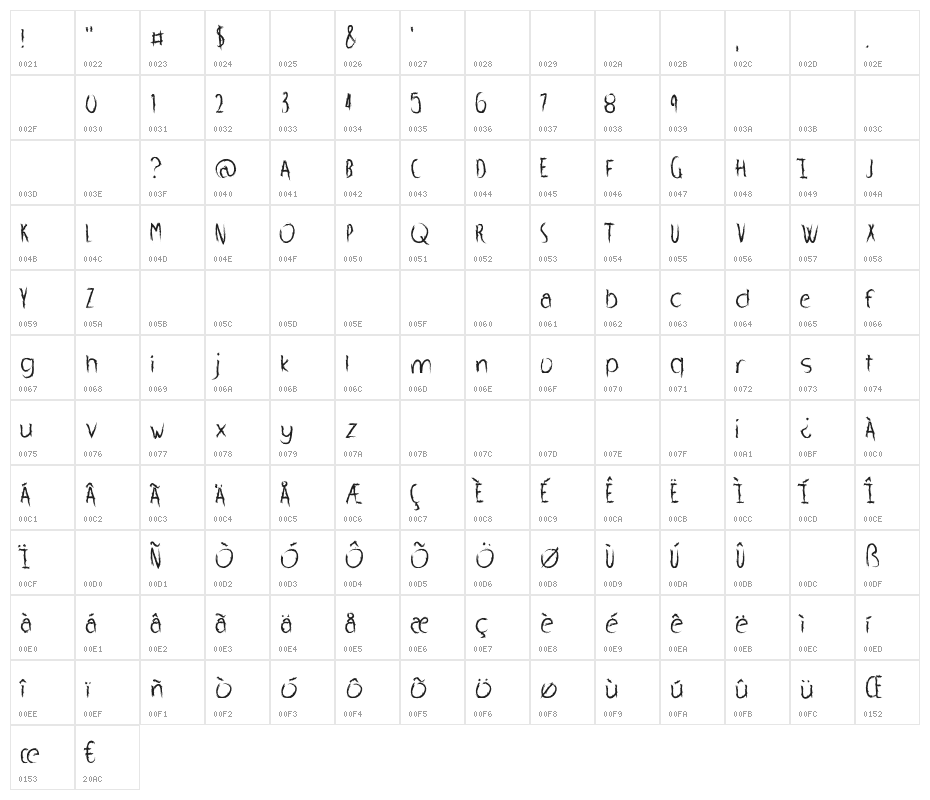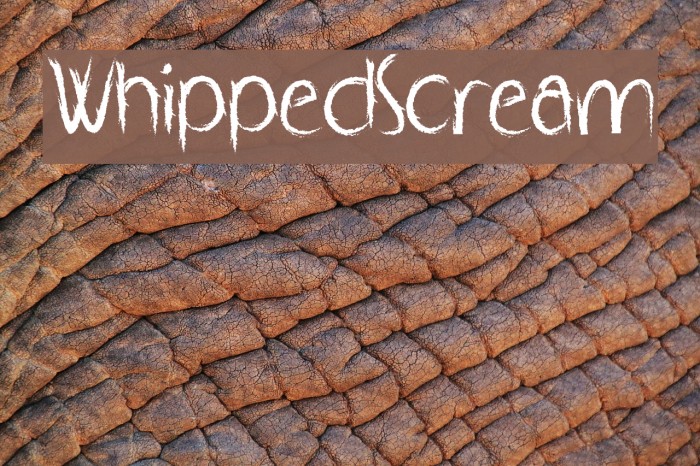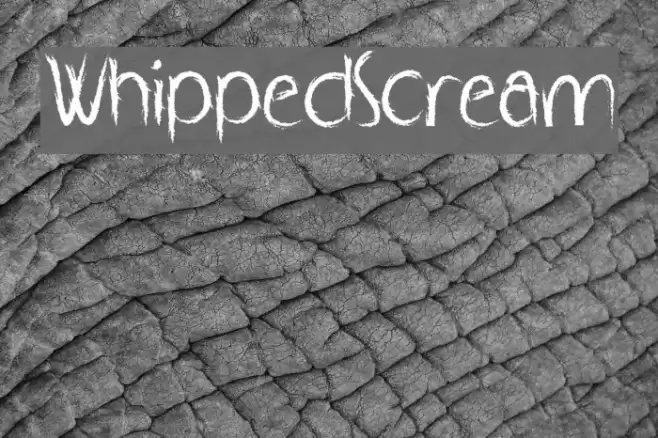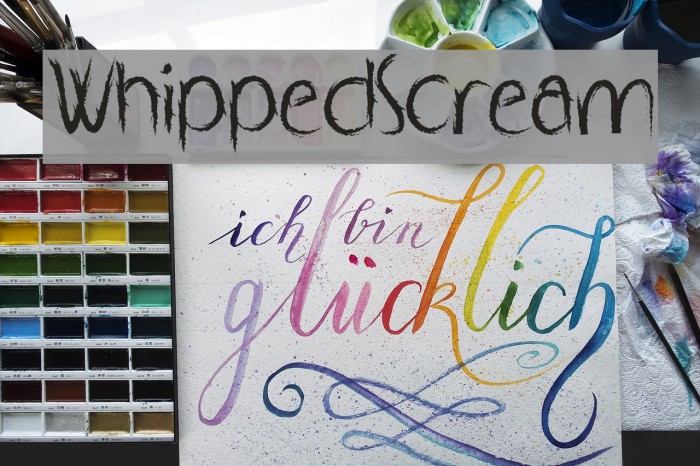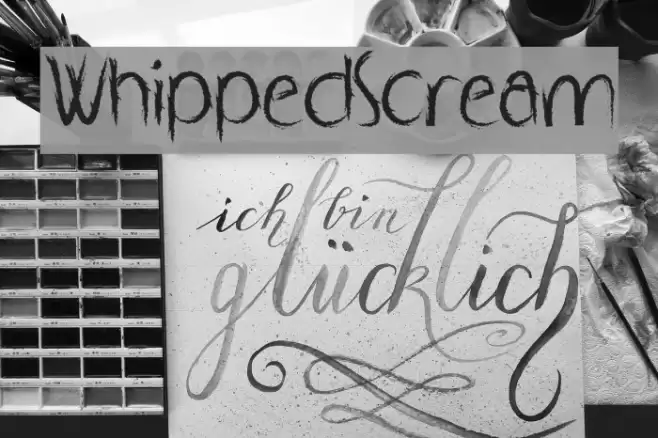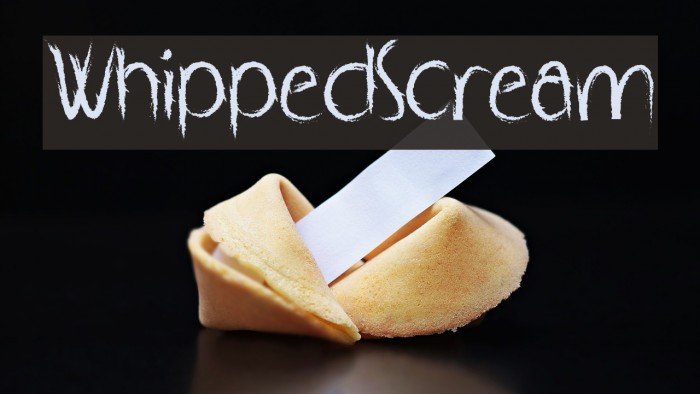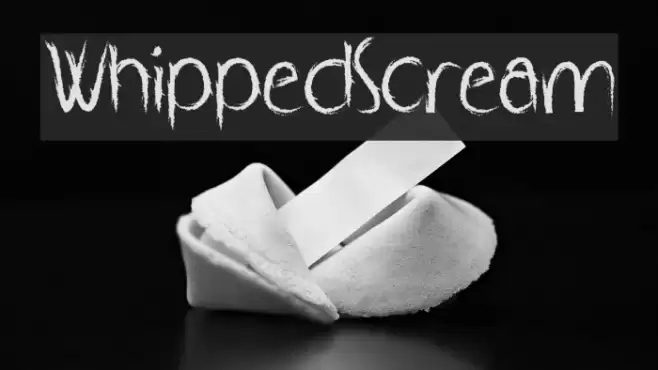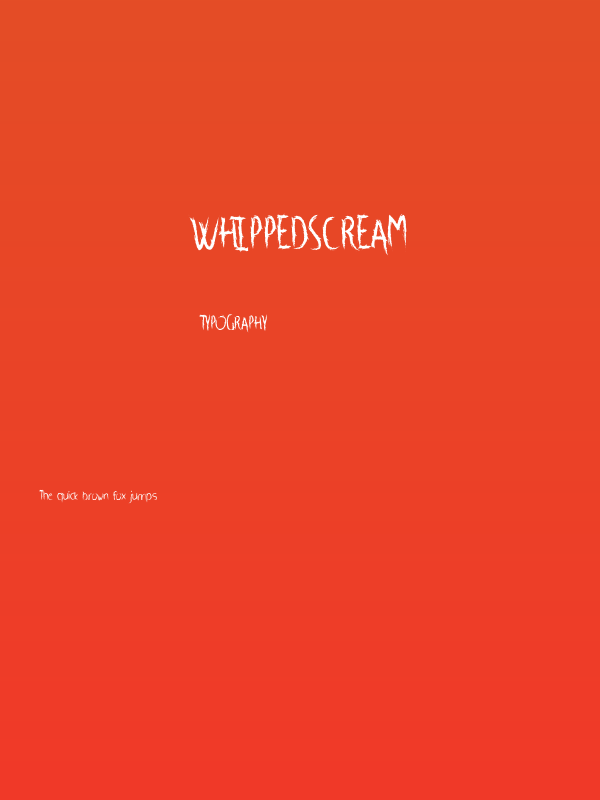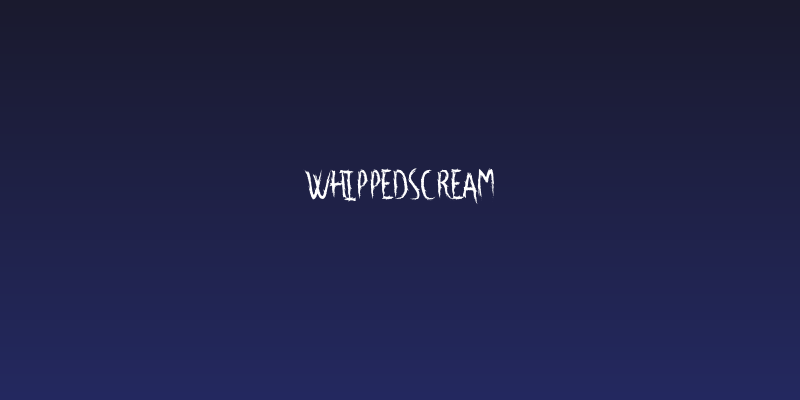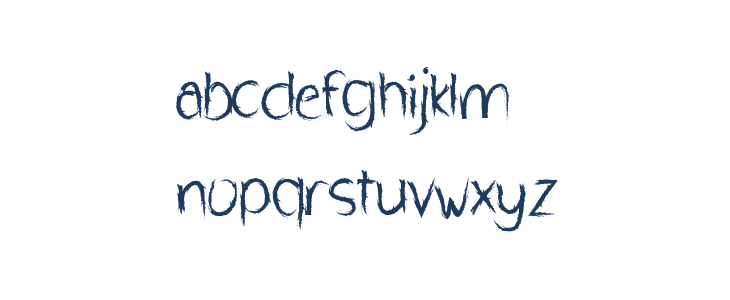
WhippedScream Font
WhippedScream Description
This font features a distressed, brush-like appearance that gives it a raw and edgy feel. The characters are unevenly weighted, with strokes that appear as if they were painted with a dry brush, creating a textured and dynamic look. The uppercase and lowercase letters maintain a consistent style, with jagged edges and irregular forms that add to the font's unique character. The numbers and special characters follow the same aesthetic, ensuring a cohesive design throughout. This font is ideal for projects that require a bold and artistic touch, such as posters, album covers, or any creative work that seeks to convey a sense of intensity and individuality.
| Proposed Projects | Posters, album covers, artistic projects, creative branding. |